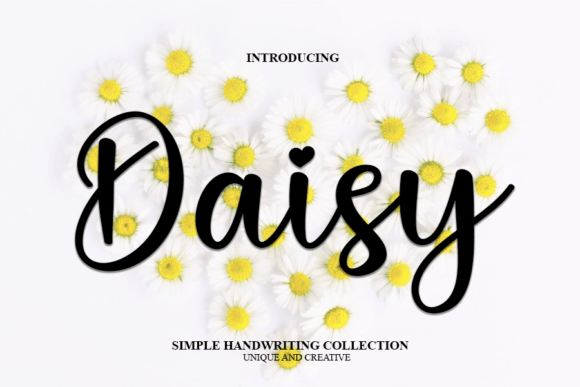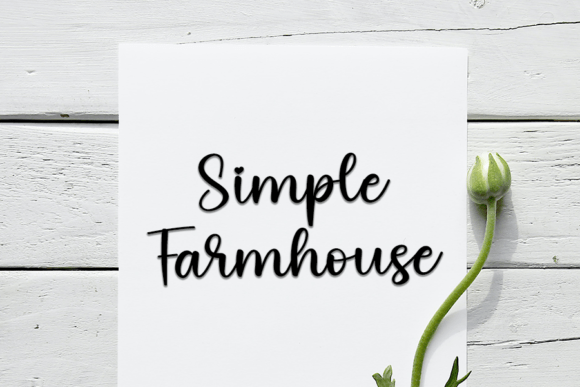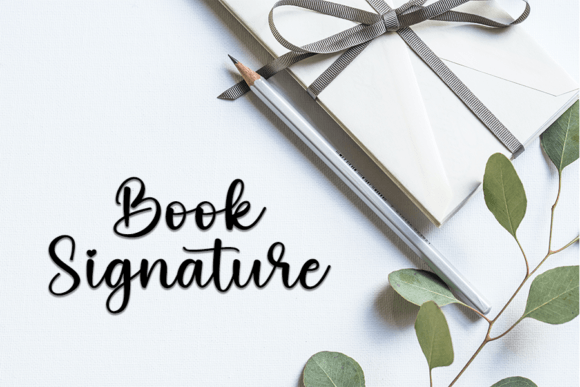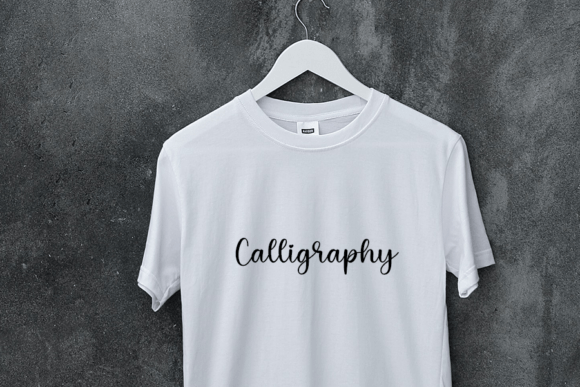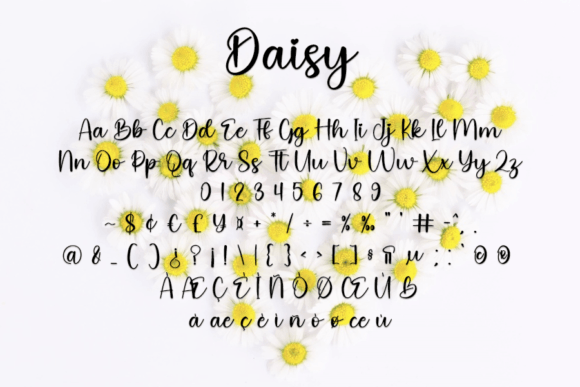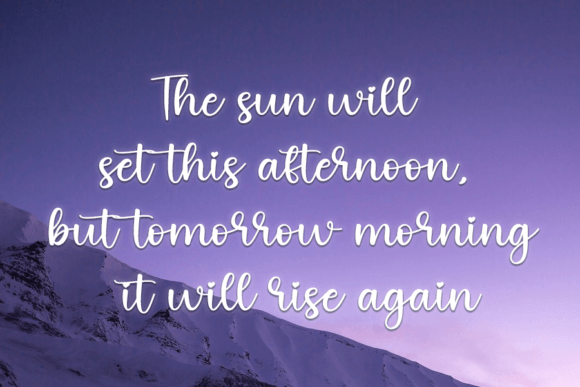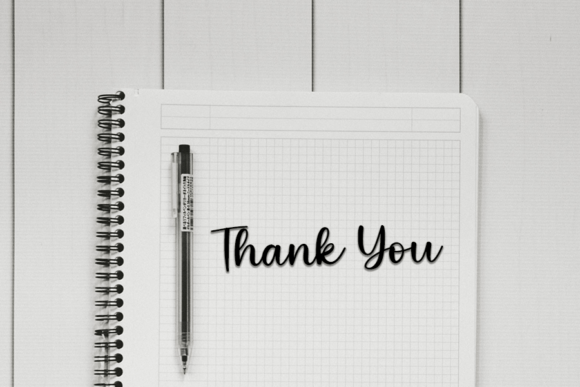
Daisy Font
Daisy: A Unique Script Font with a Personal and Elegant Touch
Looking to elevate your designs with a font that speaks elegance, creativity, and versatility? Meet Daisy, a unique script font that brings charm and sophistication to any project. Whether you’re creating handmade crafts, digital presentations, or thoughtful greeting cards, Daisy offers a delicate, handwritten feel that sets your work apart.
Its balanced curves and natural flow make it both eye-catching and highly legible, which is why many designers choose it as their go-to typeface.
Where You Can Use Daisy Script Font
One of Daisy’s strongest features is its flexibility. It adapts effortlessly to a wide range of design contexts—from minimal and clean layouts to rich, decorative creations. In addition, it maintains a handcrafted charm that makes your work feel more personal.
Here are some perfect use cases for Daisy:
• Wedding invitations and save-the-date cards
• Inspirational quote prints and posters
• Digital products like planners and journals
• Holiday and birthday greeting cards
• Personalized gifts and packaging
• Cricut and Silhouette crafting projects
Wherever you use it, Daisy leaves a lasting impression with its unique rhythm and aesthetic appeal.
Features That Make Daisy a Unique Script Font
Daisy stands out among script fonts not just for its beauty, but also for its practical features. The typeface was created with attention to detail, ensuring each letter flows harmoniously with the next. As a result, your typography will always look smooth and intentional.
Here’s what Daisy offers:
• Elegant uppercase and lowercase letters
• Beautiful ligatures for natural letter transitions
Whether you’re an experienced designer or just getting started, you’ll find Daisy both accessible and inspiring.
You’ll love how easy it is to pair Daisy with minimalist backgrounds, vibrant colors, or complementary fonts to create a cohesive design.
Add a Floral Feel to Your Typography
As its name suggests, Daisy captures the essence of floral beauty—fresh, natural, and uplifting. Its flowy script style is reminiscent of handwritten notes or romantic invitations, which is why it’s often used in lifestyle and event-related designs.
For the best results, try combining Daisy with:
• Watercolor illustrations and botanical themes
• Soft pastel palettes or rich gold accents
• Clean serif fonts for a contrasting style
Daisy is more than just a font—it’s an artistic tool that adds grace and authenticity to every word. If you’re searching for a unique script font to express your creativity, this one checks every box.